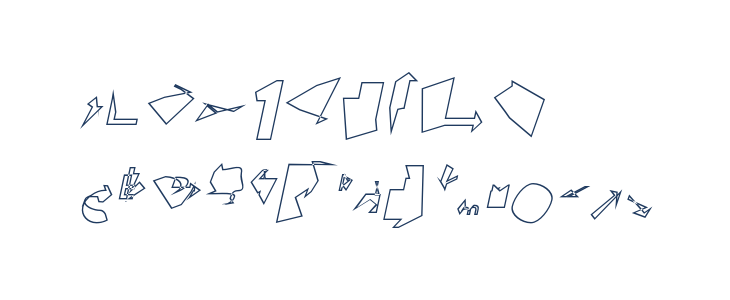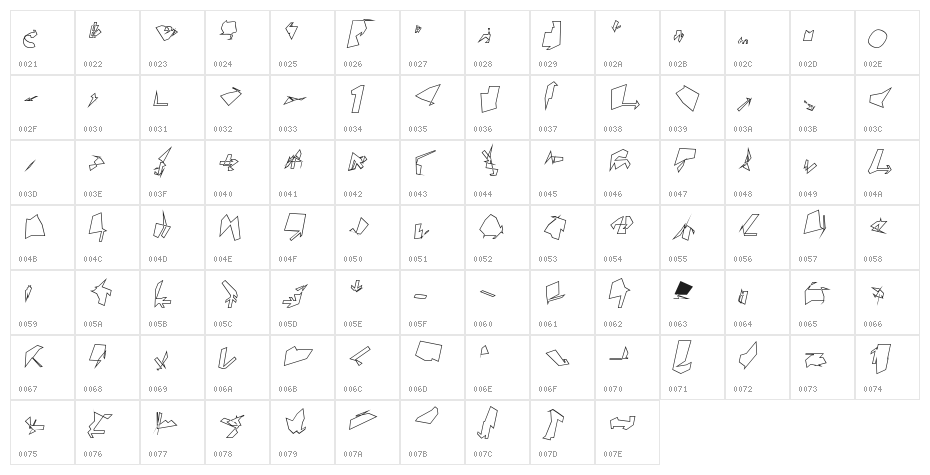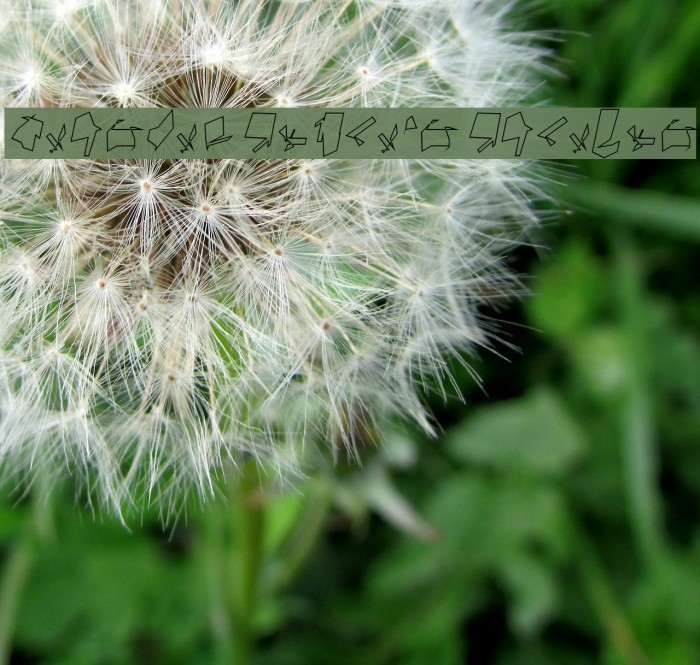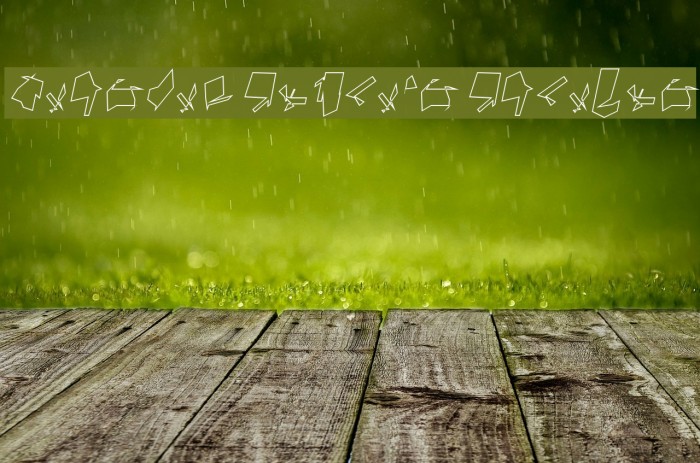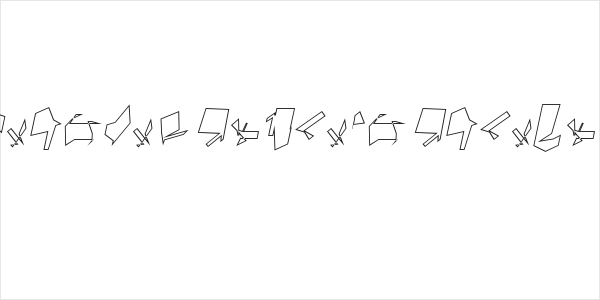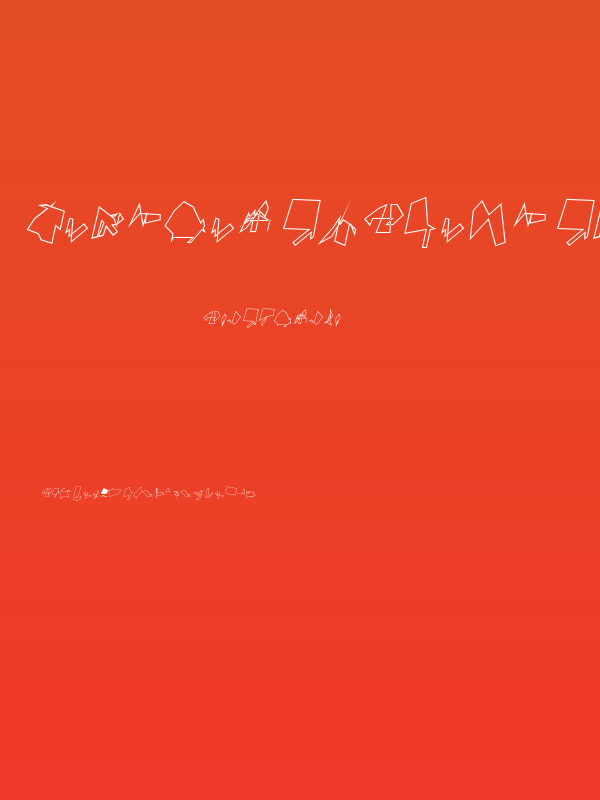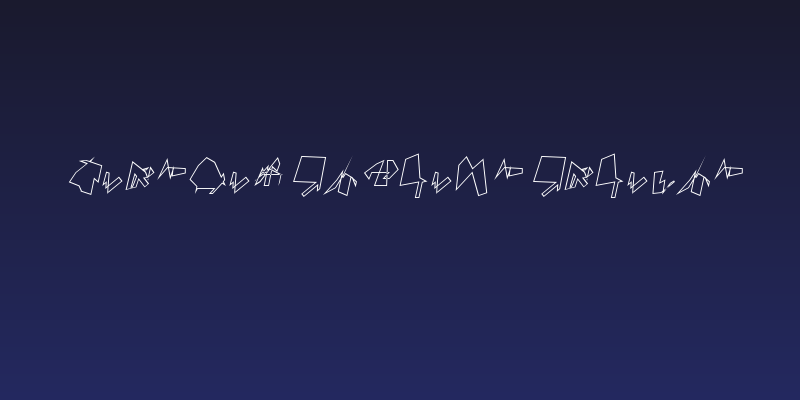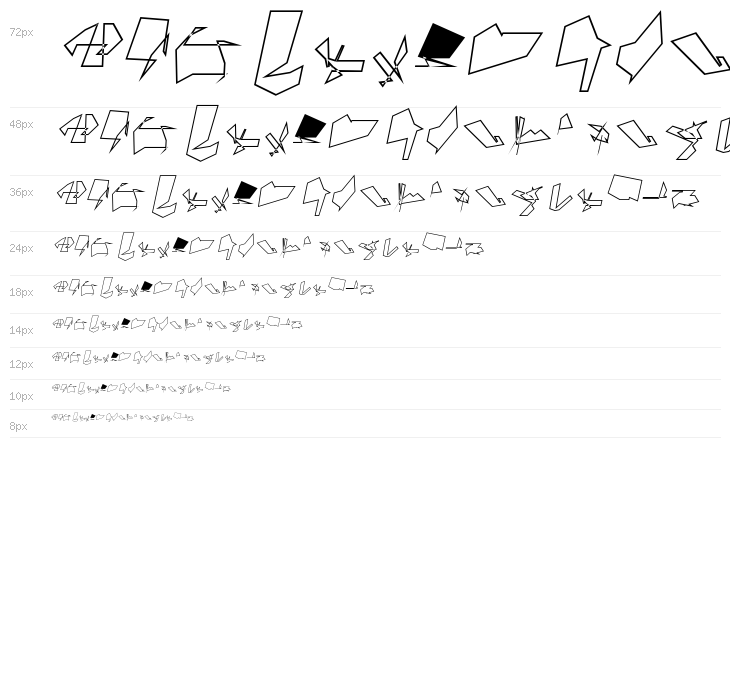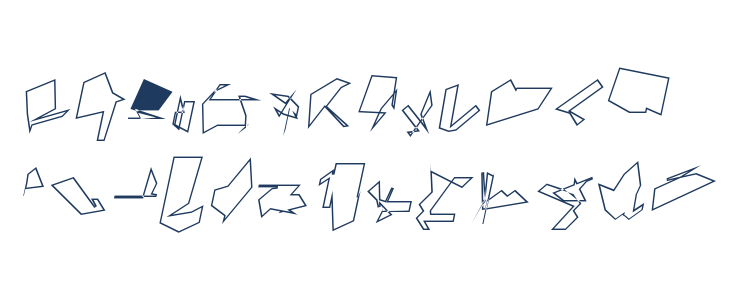
Siberia Outline Oblique Font
Siberia Outline Oblique Description
This font features a highly abstract and geometric design, characterized by sharp angles and irregular shapes. Each character is outlined, giving it a distinct oblique appearance that suggests movement and dynamism. The style is reminiscent of modern art, with a focus on unconventional forms and a lack of traditional structure. The font's unique aesthetic makes it stand out, though it may challenge readability in certain contexts. Its artistic flair and bold presentation make it suitable for creative and avant-garde projects.
| Overall Style | Modern, Abstract |
| Use Case | Logos, Headlines, Artistic displays |
| Proposed Projects | Ideal for modern art projects, avant-garde posters, album covers, and experimental design work. |